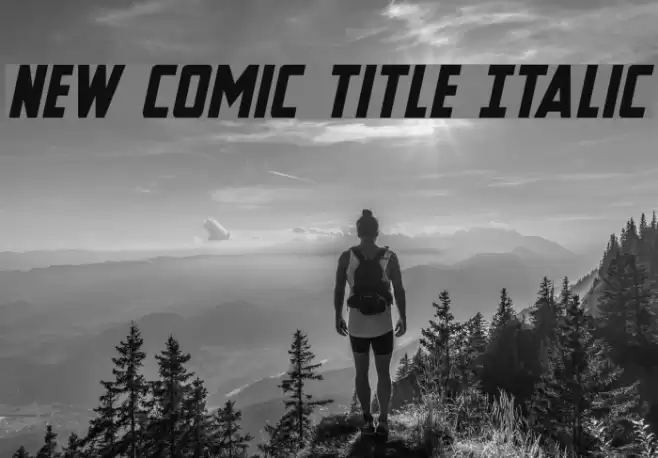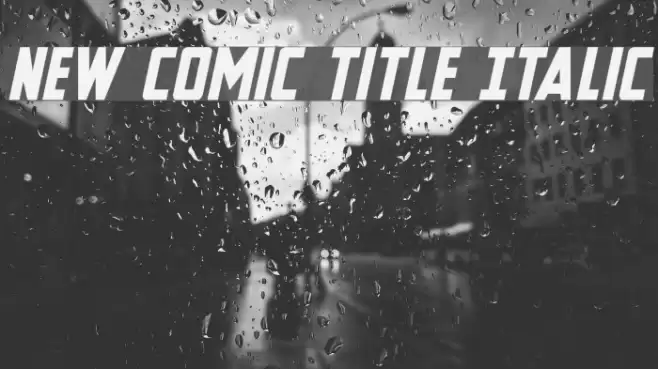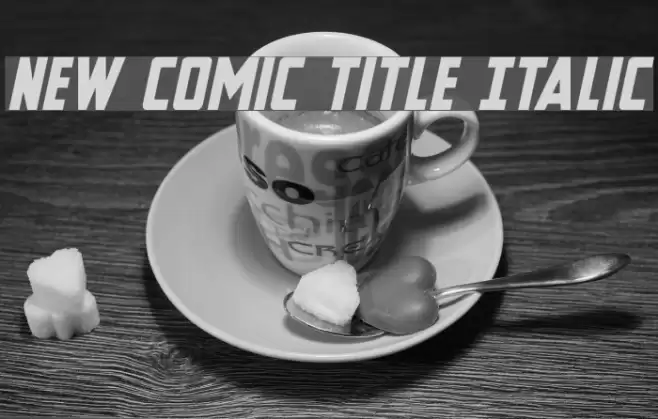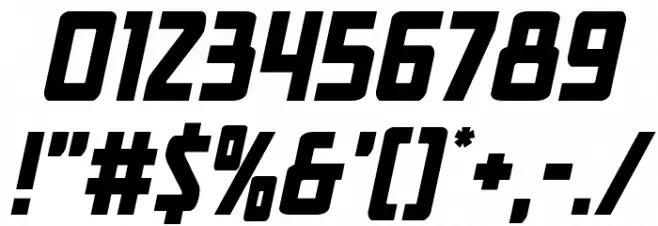
New Comic Title Italic Font
New Comic Title Italic Description
This font features a bold and dynamic style with a distinct italic slant, giving it a sense of motion and energy. The characters are robust and angular, with sharp edges and a uniform thickness that conveys strength and modernity. The uppercase letters are particularly striking, with a consistent height and width that ensures readability even at smaller sizes. The numerals and special characters maintain the same boldness and angularity, making them perfect for attention-grabbing headlines or impactful designs. The overall aesthetic is contemporary and assertive, suitable for projects that require a strong visual presence.
A bold, italic font with angular characters and a modern, dynamic style from Uncategorized fonts.
- Proposed Projects: Ideal for comic book titles, action-themed posters, video game graphics, and branding that requires a bold statement.